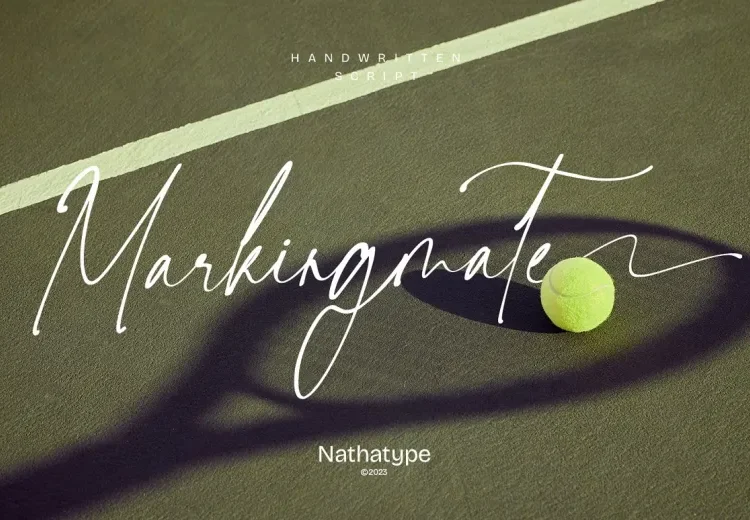
Markingmate Font
Markingmate is an exquisite script typeface that captures the beauty of smooth handwriting while adding refined contrasts to enhance each letterform’s character. Crafted with care, it strikes a perfect balance between fluidity and structure, giving the font an air of sophistication and affluence. The subtle color contrasts within Markingmate elevate its appearance, making it ideal for designs that demand elegance and personalization.
What sets Markingmate apart is its delicate curves and soft transitions, creating an inviting rhythm that effortlessly guides the reader’s eye. The thoughtful irregularities in the proportions of each word add authenticity to the font, providing a hand-drawn feel that brings warmth and individuality to your text. This unique feature makes it stand out as a true representation of penmanship.
Perfect for designs where a personal touch is needed, Markingmate excels in larger text sizes, where its intricate details shine through while maintaining legibility. Whether used for wedding invitations, branding, or editorial design, this font adds a sophisticated, handwritten flair that makes your text feel special and unique.